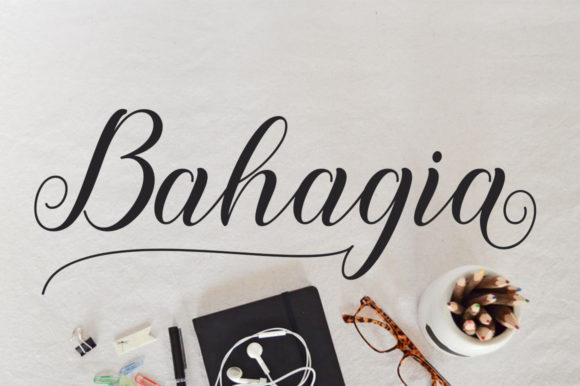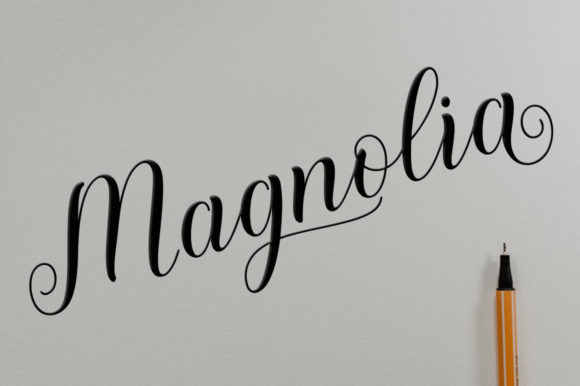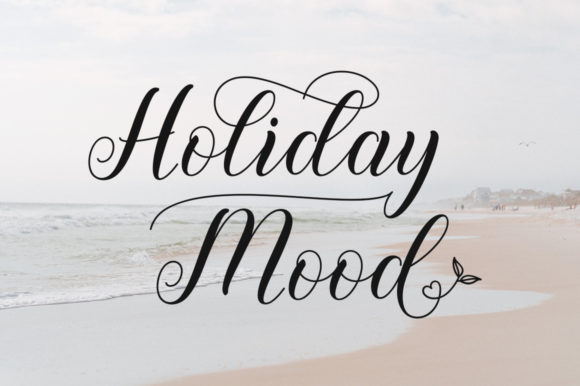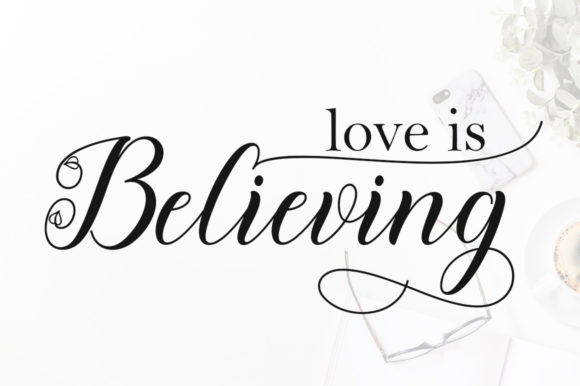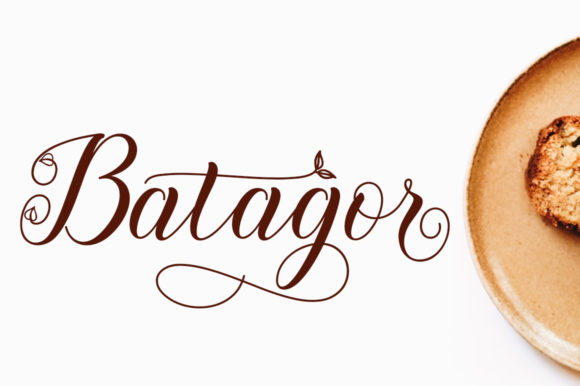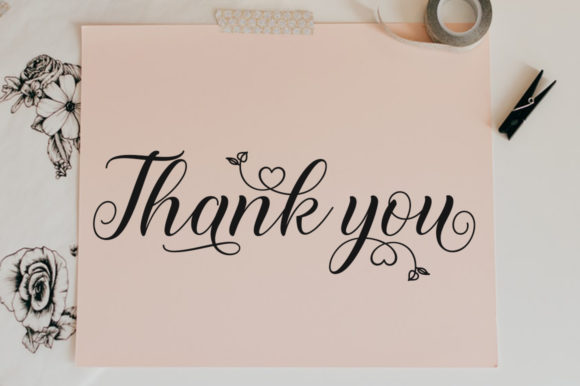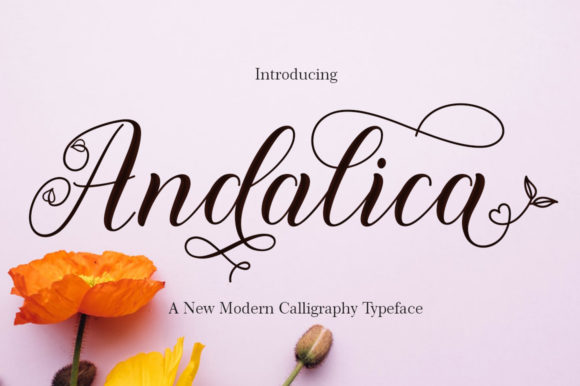
Discover the Elegance of Andalica Font: Elevate Your Designs with its Unique Swashes
Are you a designer or crafter looking for a font that can add a touch of elegance and sophistication to your work? Look no further than the Andalica Font. With its lovely swashes, Andalica is the perfect choice for anyone looking to take their design ideas to the next level. In this article, we’ll explore the unique features of Andalica Font and how it can inspire your creativity.
What is Andalica Font?
Andalica Font is a beautiful, elegant font that is perfect for a wide range of design projects. Its unique swashes and flourishes make it stand out from other fonts, adding a touch of sophistication and glamour to any design. Whether you’re working on a logo, brochure, or website, Andalica Font is sure to make your project look professional and polished.
The Unique Approach of Andalica Font
Andalica Font’s unique approach lies in its stunning swashes and flourishes. These decorative elements add a level of elegance and sophistication to any design, making it perfect for projects that require a touch of luxury. The font’s swashes are carefully crafted to complement the font’s letters, creating a beautiful and harmonious design that is sure to impress.
How to Use Andalica Font in Your Designs
Andalica Font is incredibly versatile and can be used in a wide range of design projects. Here are a few ways you can use Andalica Font to elevate your designs:
- Logos and Branding: Andalica Font is perfect for creating elegant and sophisticated logos that will help your brand stand out.
- Brochures and Flyers: Add a touch of elegance to your marketing materials with Andalica Font.
- Websites: Use Andalica Font to create a beautiful and professional-looking website that will impress your visitors.
- Stationery: Add a touch of sophistication to your stationery with Andalica Font.
Tips for Getting the Most Out of Andalica Font
Here are a few tips for getting the most out of Andalica Font:
- Experiment with Different Sizes: Andalica Font looks great in a variety of sizes, so don’t be afraid to experiment to find the perfect size for your project.
- Play with Swashes: Andalica Font’s swashes are one of its most unique features, so have fun experimenting with different swash combinations to find the perfect look for your project.
- Pair it with Other Fonts: Andalica Font pairs well with a variety of other fonts, so don’t be afraid to experiment with different font combinations to find the perfect look for your project.
| Font Name | Andalica Font |
| Author | Greentype |
Andalica Font is a beautiful and elegant font that is perfect for designers and crafters looking to add a touch of sophistication to their work. With its unique swashes and flourishes, Andalica Font is sure to take your design ideas to the next level. Whether you’re working on a logo, brochure, website, or stationery, Andalica Font is the perfect choice. So why wait? Get inspired by Andalica Font’s unique approach and elevate your designs today!
Andalica Font: The Perfect Choice for Designers and Crafters
Andalica Font is the perfect choice for designers and crafters looking to add a touch of elegance and sophistication to their work. With its unique swashes and flourishes, Andalica Font is sure to impress your clients and elevate your designs. So why wait? Download Andalica Font today and take your designs to the next level!